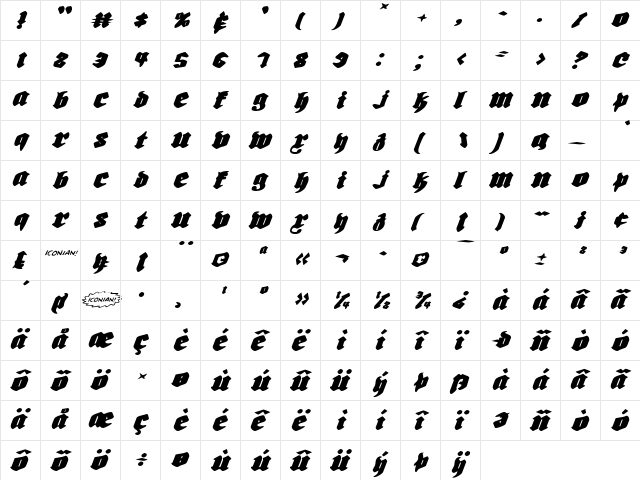
Bierg䲴en Expanded Italic Expanded Italic
Design Context for Bierg䲴en Expanded Italic Typeface
Bierg䲴en Expanded Italic is a composed and adaptable typeface that performs quietly and consistently across a wide range of design contexts. Its italic angle brings a sense of urgency and motion to the letterforms.
Pro Tip: Try Bierg䲴en Expanded Italic for annotation and caption copy alongside an upright companion — the contrast in angle creates a dynamic but ordered typographic system.